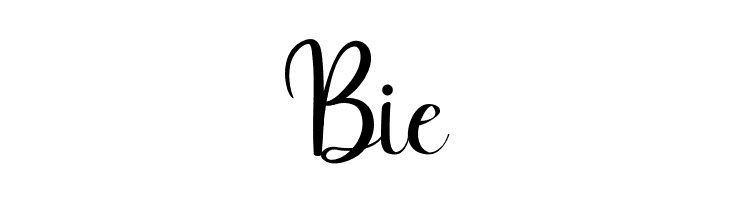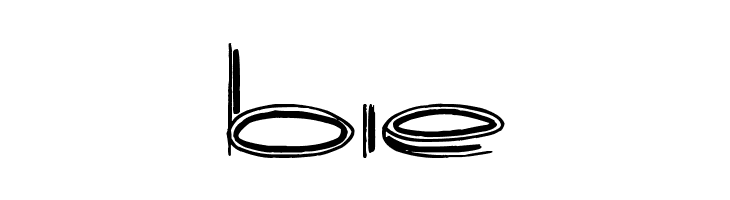
A decorative serif font with intricate floral embellishments.
A whimsical, flowing script font with elegant, fluid strokes.
A playful and elegant script font with modern, graceful curves.
A bold, brushstroke-style font with a dynamic, artistic appearance.
A bold, brush-style font with dynamic, handwritten characteristics.
A playful, hand-drawn font with rounded, whimsical characters.
A bold, playful font with rounded strokes and a friendly appearance.
A futuristic and sleek font with elongated, curved letterforms.